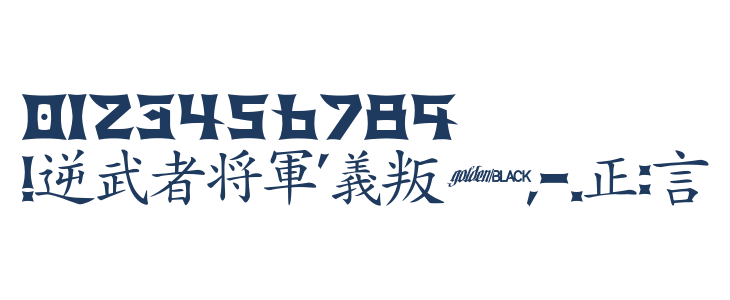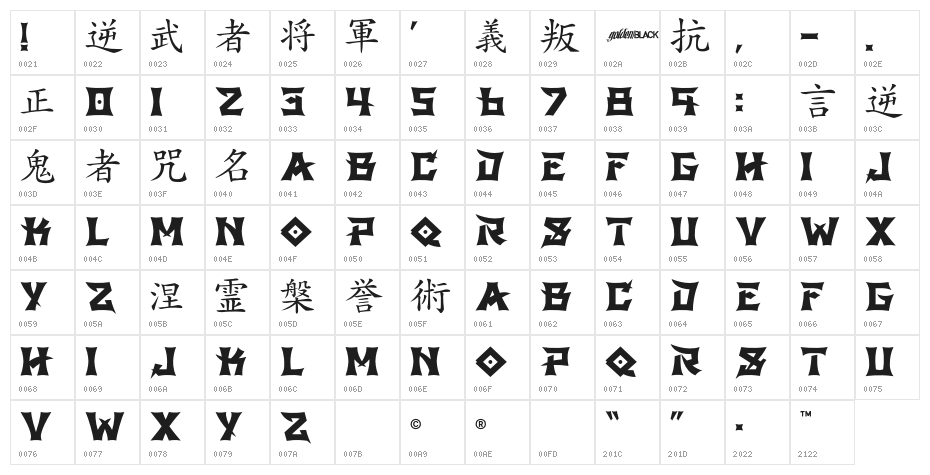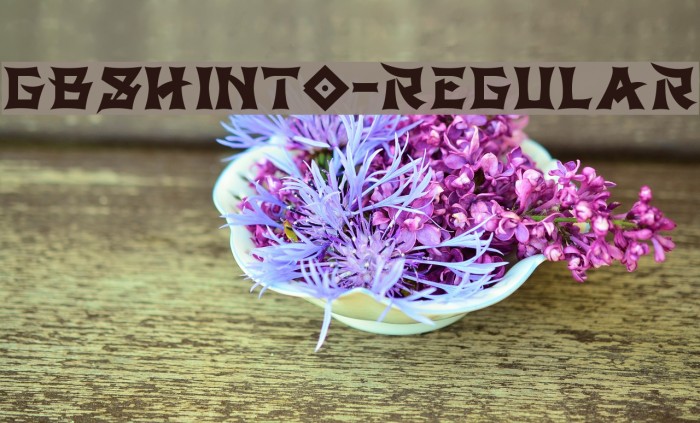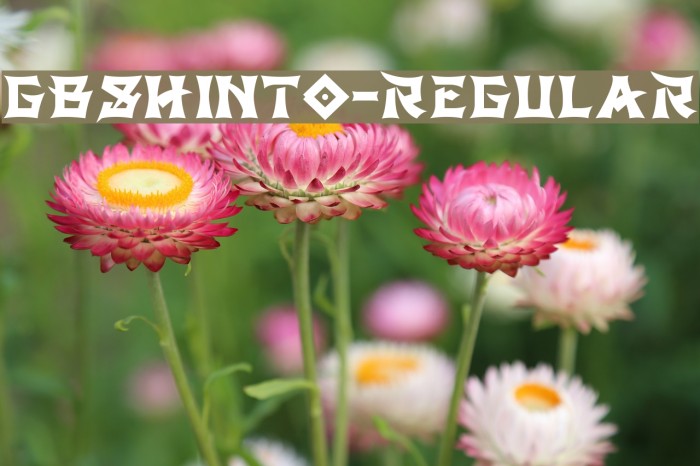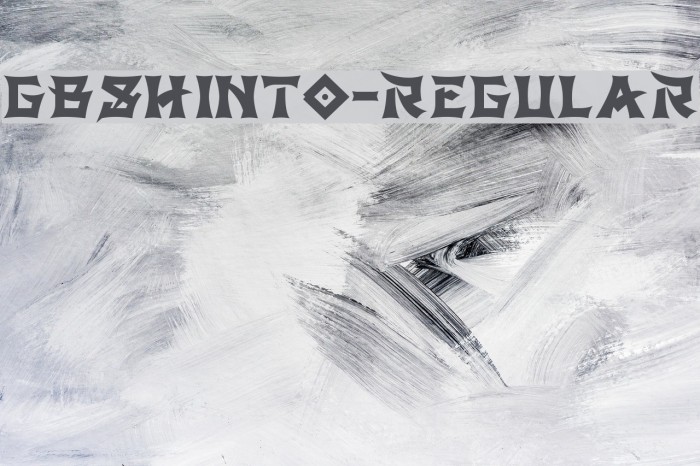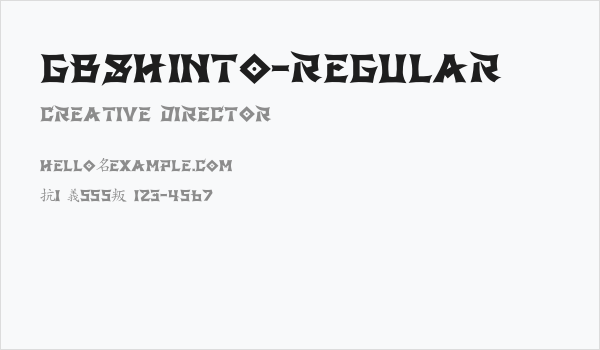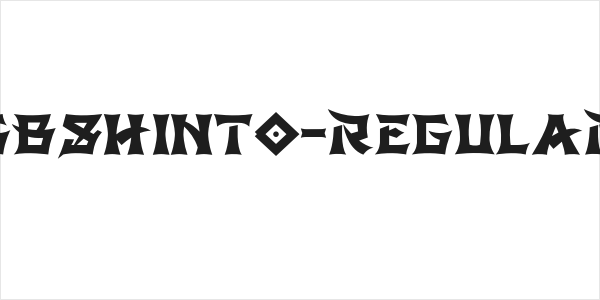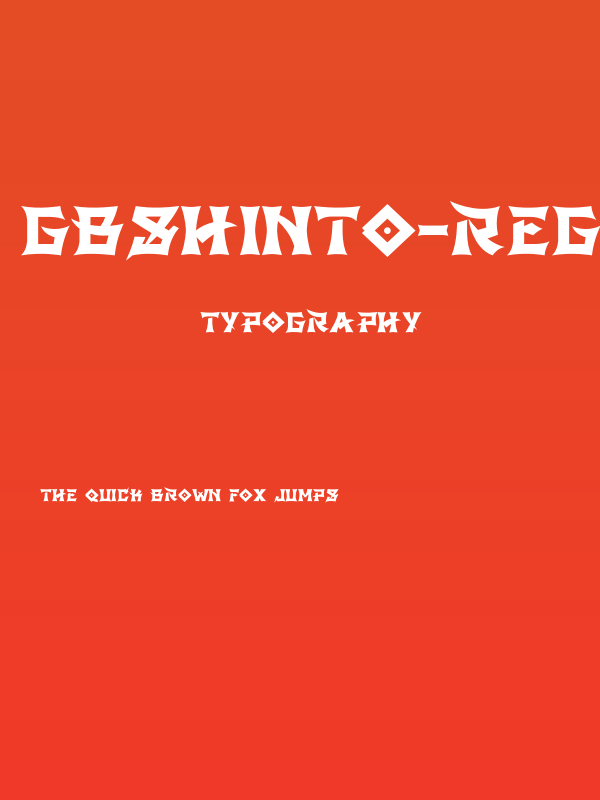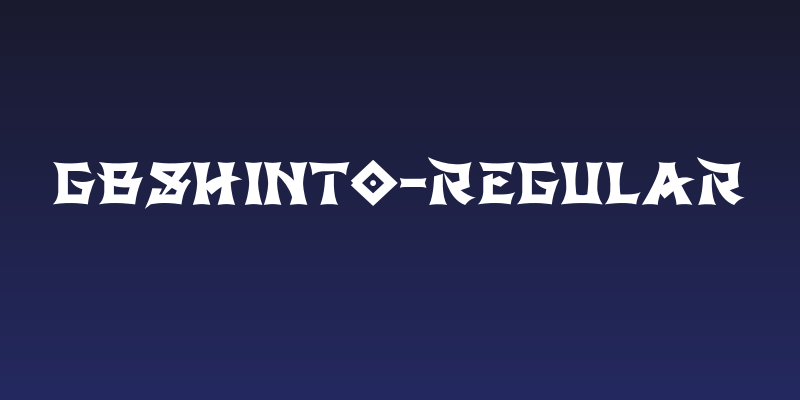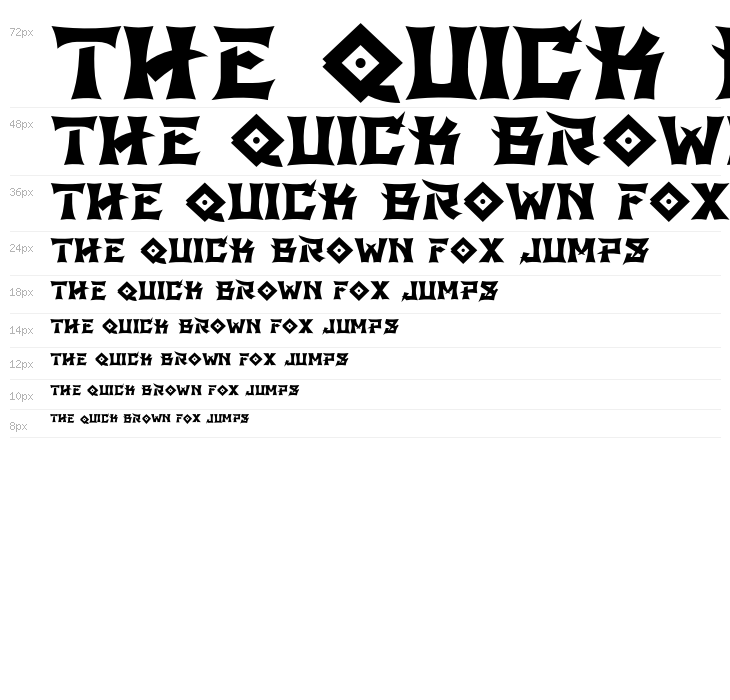
GBShinto-Regular Font
GBShinto-Regular Description
This font features a bold and striking design with sharp, angular edges and a distinct geometric style. The uppercase letters are characterized by their strong presence and unique shapes, which incorporate pointed serifs and intricate detailing. The lowercase letters maintain the same boldness, offering a cohesive look across the alphabet. Numbers are equally bold, with a consistent angular design that complements the letters. The special characters are crafted with the same attention to detail, ensuring they fit seamlessly into the overall aesthetic. This font's design is reminiscent of traditional Asian calligraphy, yet it maintains a modern edge, making it suitable for a variety of creative projects.